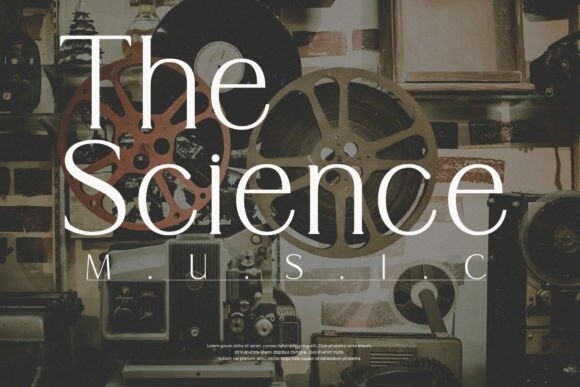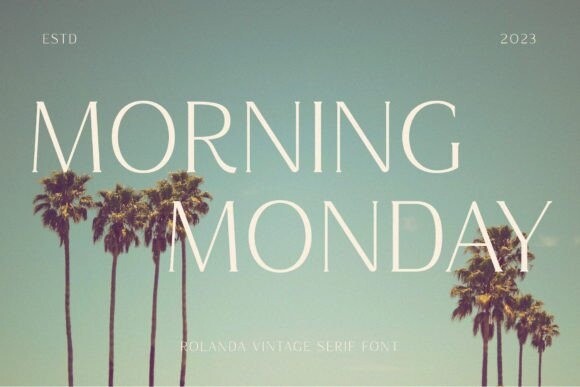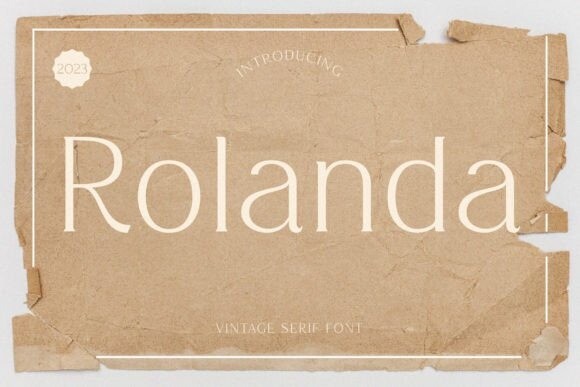
Rolanda Font
Rolanda Font: An elegant and modern serif typeface. With its modern and minimalist appearance, Rolanda brings a luxurious and clean style to your projects such as websites, modern logos, branding identities, social media quotes, wedding stationery, and various other needs!
Roloanda displays capital letters A to Z which are unique and classy, ​​of course, because they are made with great care so that they become beautiful fonts and can be adapted to various large projects as desired.